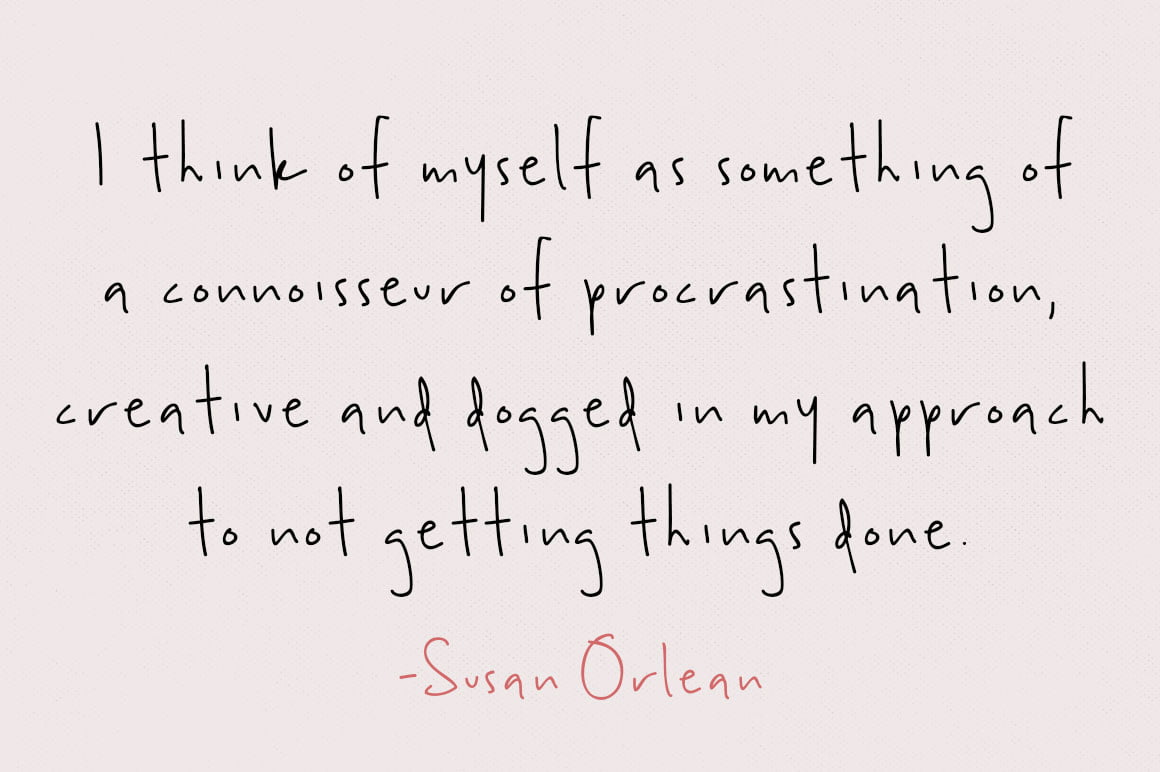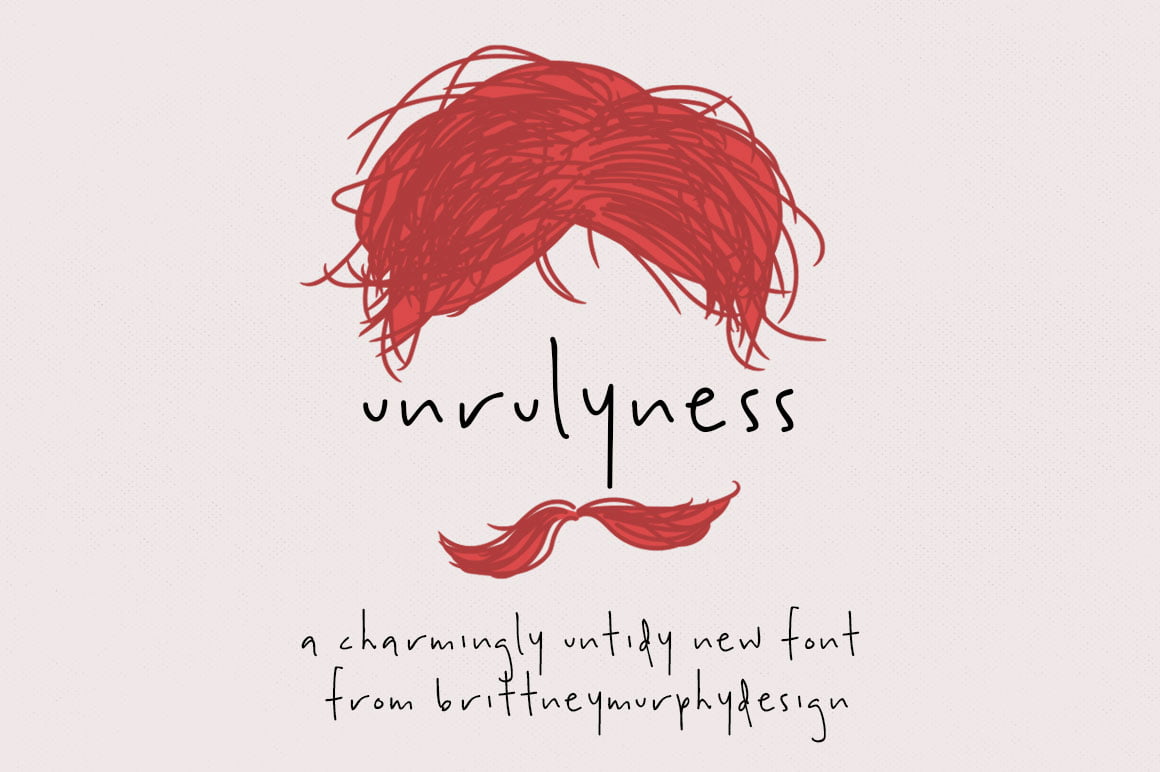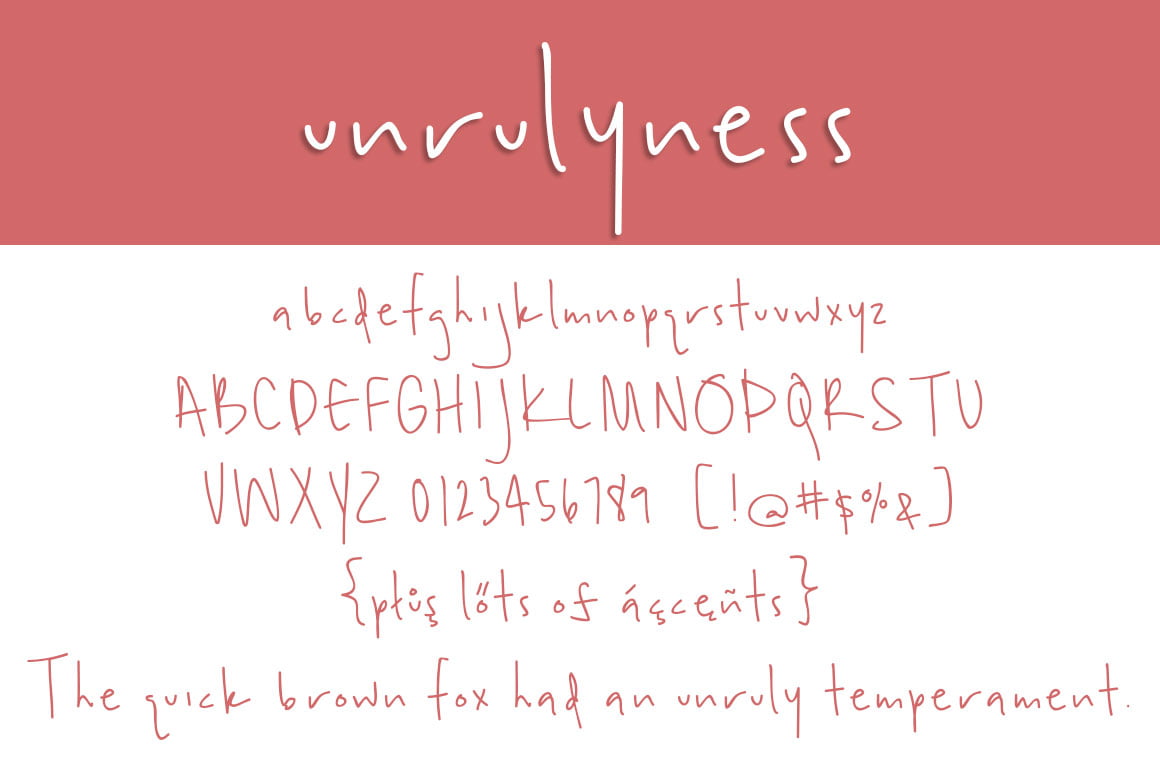
Unrulyness
Unrulyness Font
Unrulyness Font Quote
Unrulyness Font Letters
About the Unrulyness Font
Unrulyness is a typeface that evokes the feeling of recklessly quick & casual handwriting. Unrulyness is here and ready to procrastinate.. someday.